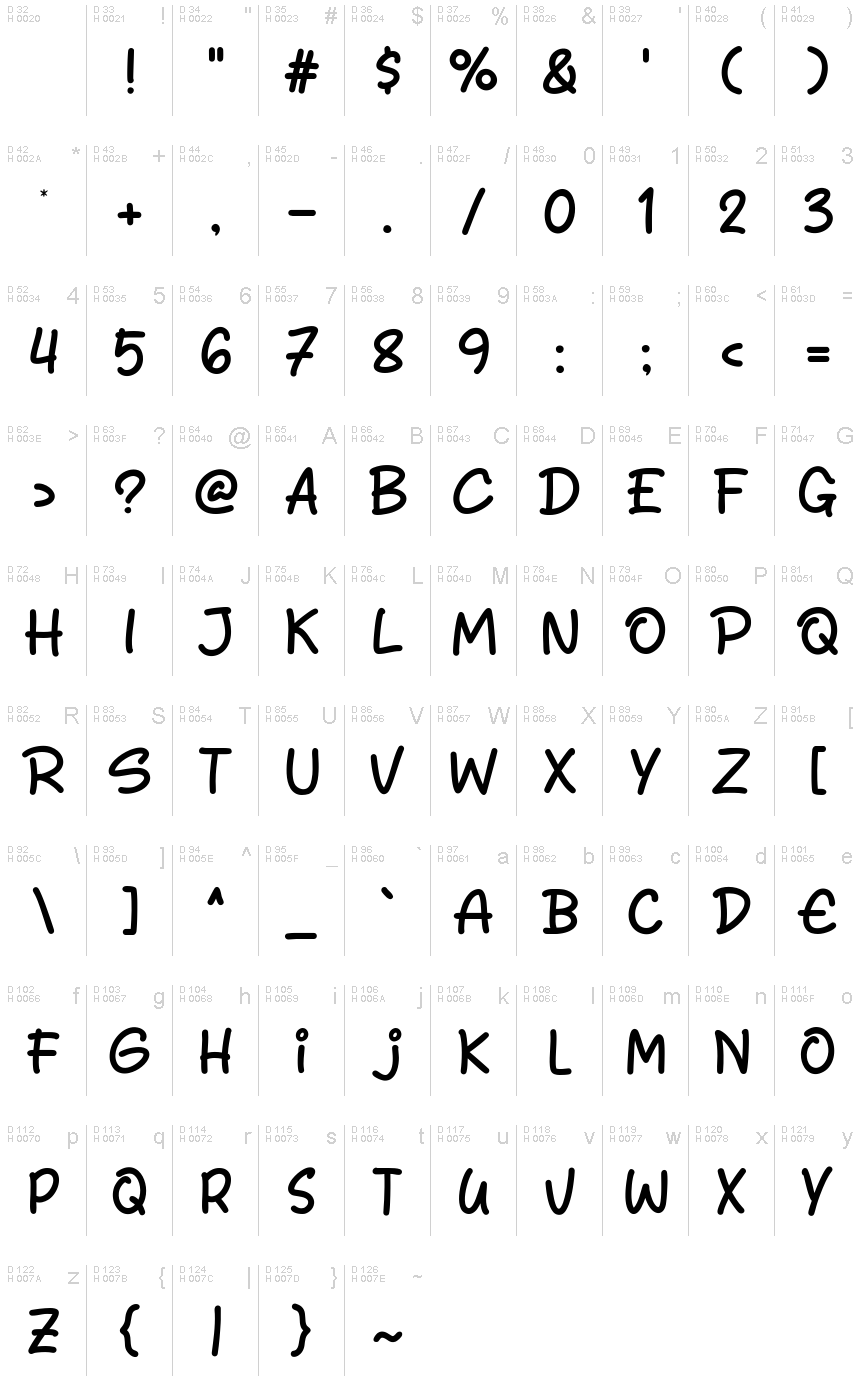
Funky Coffee
Funky Coffee, a captivating display font crafted by designer Khurasan, exudes a whimsical and energetic charm. With its playful, cartoon-inspired aesthetic, this font immediately captures attention, inviting viewers to indulge in its bold, expressive letterforms. The irregular edges and organic, hand-drawn quality lend a sense of spontaneity and fun, while the overall balance and legibility ensure a visually striking result.
This versatile font can elevate a wide range of design projects, from energetic branding and packaging to playful event materials and children's illustrations. Its distinctive style makes it a compelling choice for creating eye-catching headlines, attention-grabbing logos, and memorable typographic compositions that leave a lasting impression.